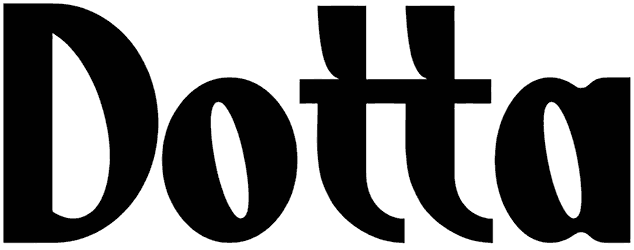
Zoya Font
Zoya is a modern sans serif font that is commonly known for its full details and high legibility. This masterpiece provides two distinctive styles and lets you add a bit of variety to any kind of editorial projects like video game posters, stickers, menus, social media posts, and wood engravings.
Due to its bold and aesthetic form, it can push a sense of simplicity, momentum, professionalism, or minimalistic in your creative ideas.
Designed by: MireyDesign